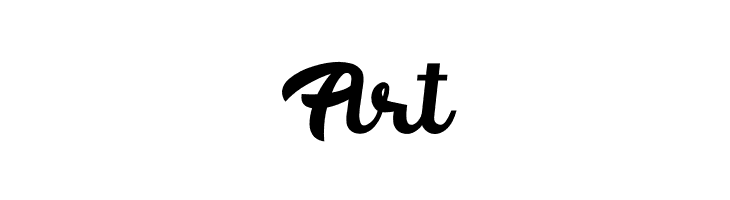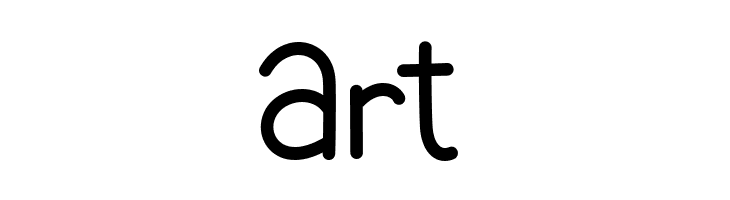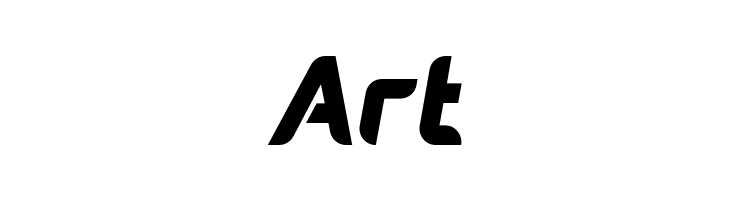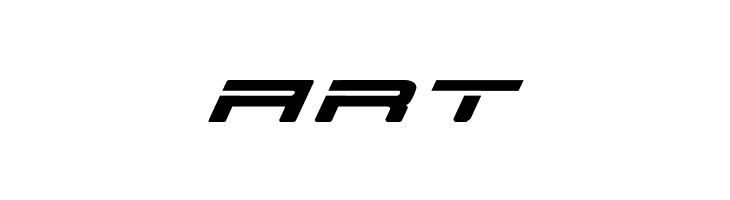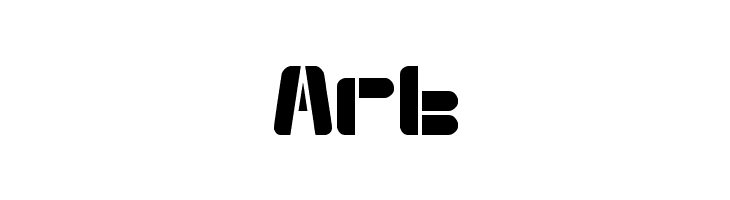
• AuldMagick Bold
( AgaSilva - agasilva.com )
A decorative, medieval-inspired font with intricate flourishes.
• AuldMagick Bold Italic
( AgaSilva - agasilva.com )
A bold, italicized decorative font with a mystical, enchanting style.
• AuldMagick Italic
( AgaSilva - agasilva.com )
An ornate, medieval-inspired italic font with decorative flourishes.
• AusPROBE
• Austere
A bold, dynamic font with a futuristic and sporty style.
• AustinLights
A playful, bold font with a hand-drawn, distorted style.
• Austrian
A playful, casual handwritten font with smooth, flowing lines.
• Auto Bots
A bold, geometric font with a futuristic and industrial aesthetic.
• Autumn Ceria
A playful, hand-drawn font with rounded edges and a whimsical style.
• Aventurina